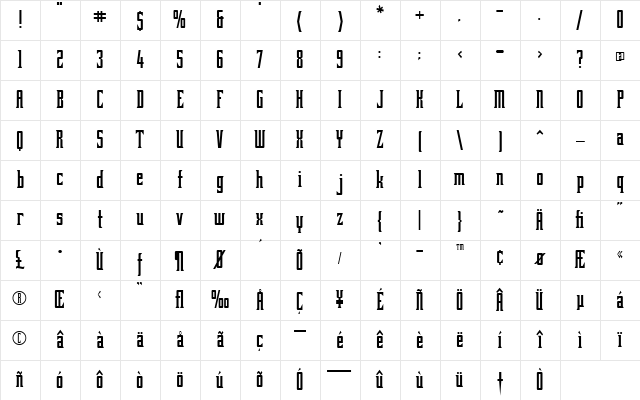
BubbaLove-Bold Regular Free Font
BubbaLove-Bold Regular
Design Context for BubbaLove-Bold
BubbaLove-Bold is a composed and adaptable typeface that performs quietly and consistently across a wide range of design contexts. Its bold stroke weight gives it real presence on the page.